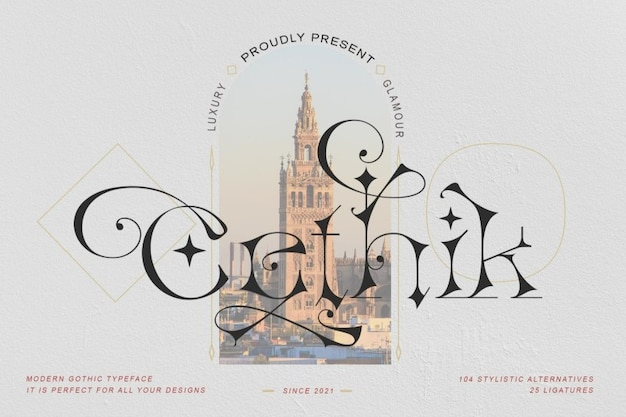
Cethic
Cethic Font
Alit Design
Are you looking for new typefaces to add a fun style to your projects? If so, Cethic is the right font for you! This modern gothic typeface will make your creations stand out.